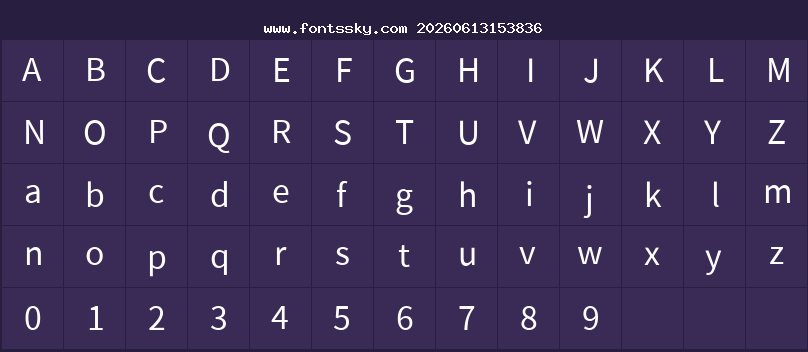
Taipei Sans TC Beta Preview
• Font Name: Taipei Sans TC Beta
• Full Font Name: Taipei Sans TC Beta Regular
• Designer: JT Foundry
• Manufacturer: JT Foundry
About Taipei Sans TC Beta.ttf
Taipei Sans TC Beta.ttf is a modern, elegant sans-serif font designed for ultimate readability and visual harmony. Perfect for branding, headlines, web design, and print materials.